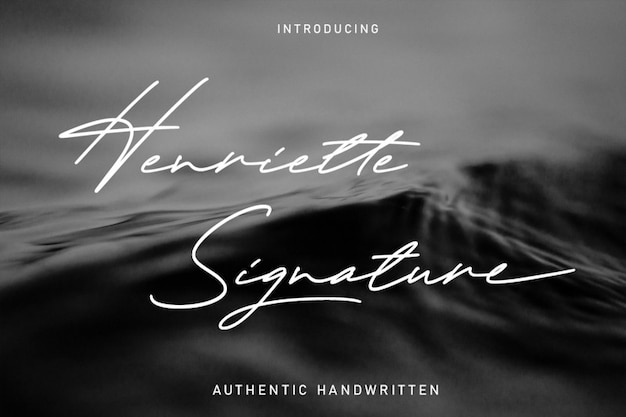
Henretta Font
"Henretta" font exudes the timeless charm of a handwritten signature with its elegant calligraphic strokes. Each letter flows seamlessly, capturing the essence of personalized elegance. Perfect for adding a touch of sophistication to invitations, logos, and any project where a signature flourish is desired.